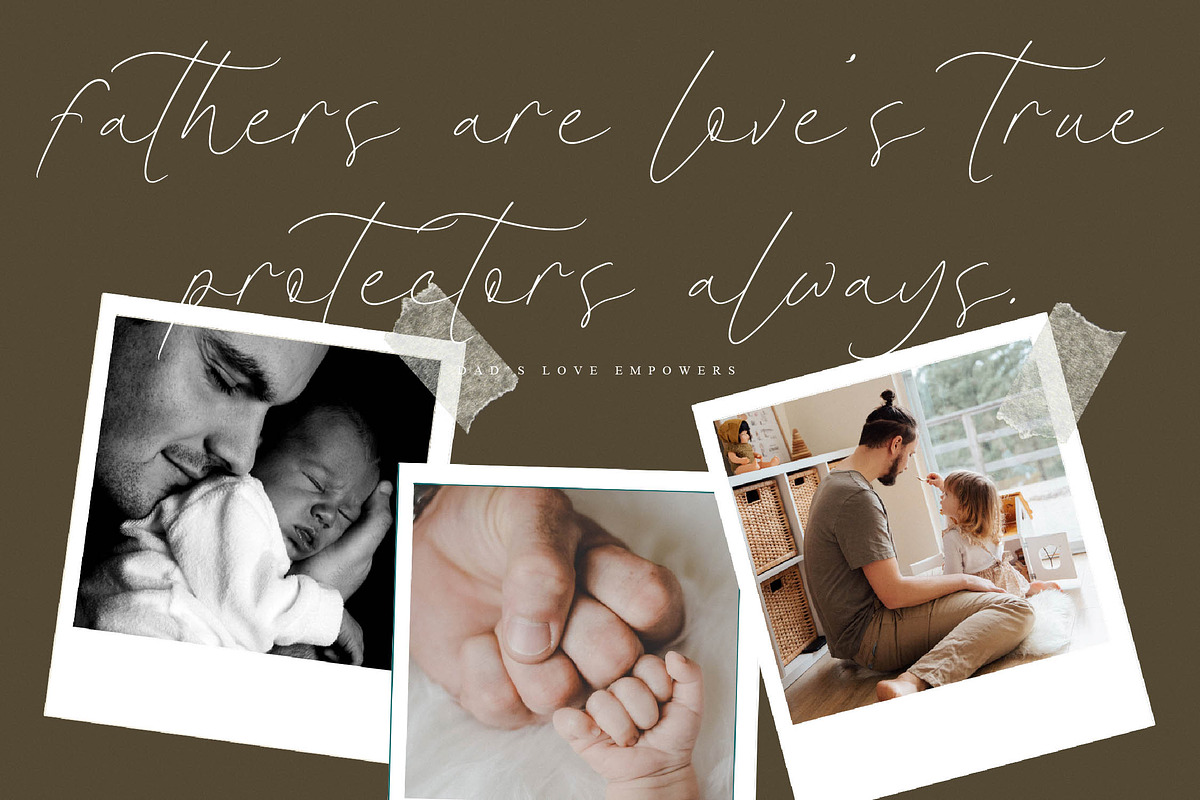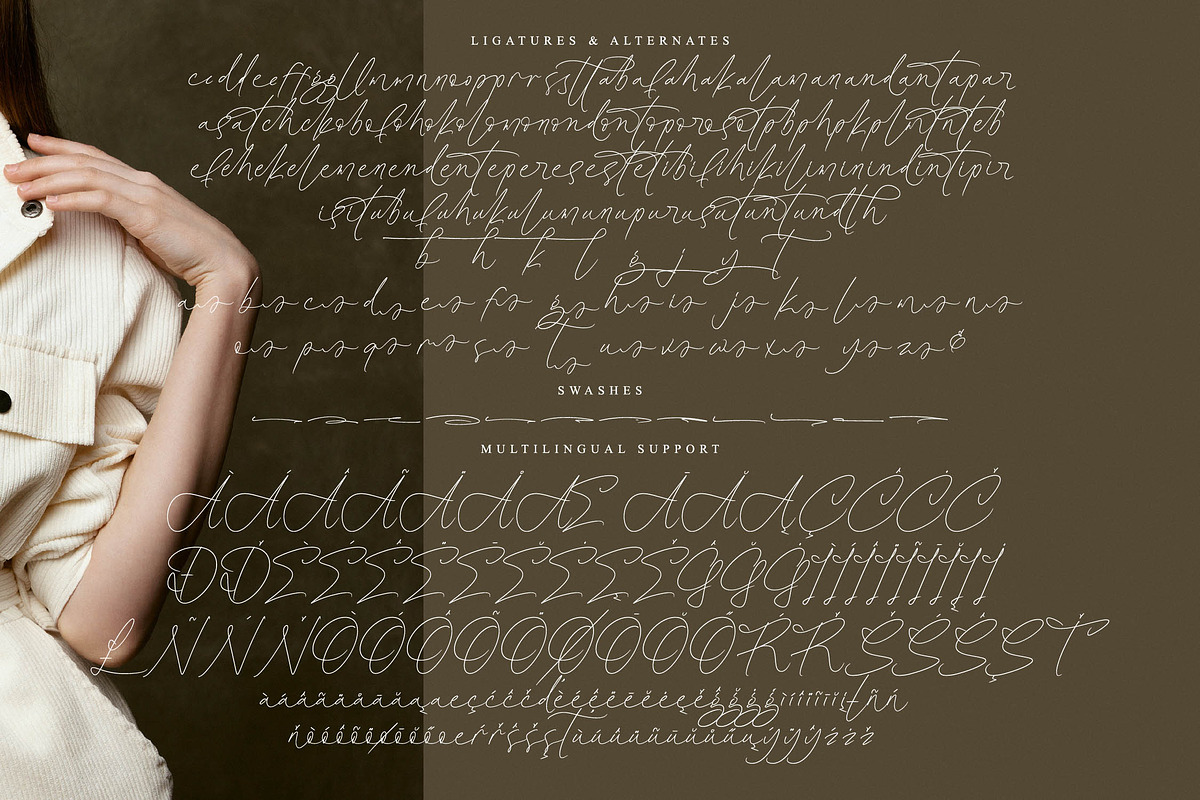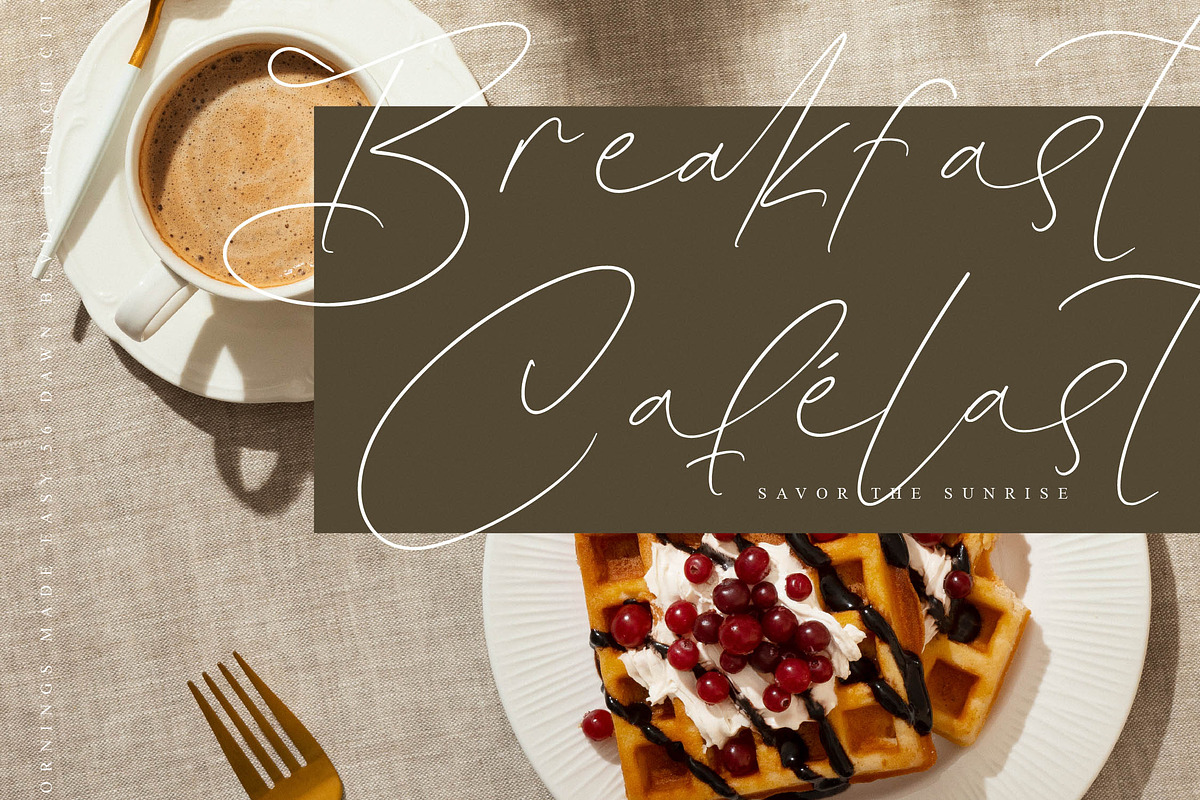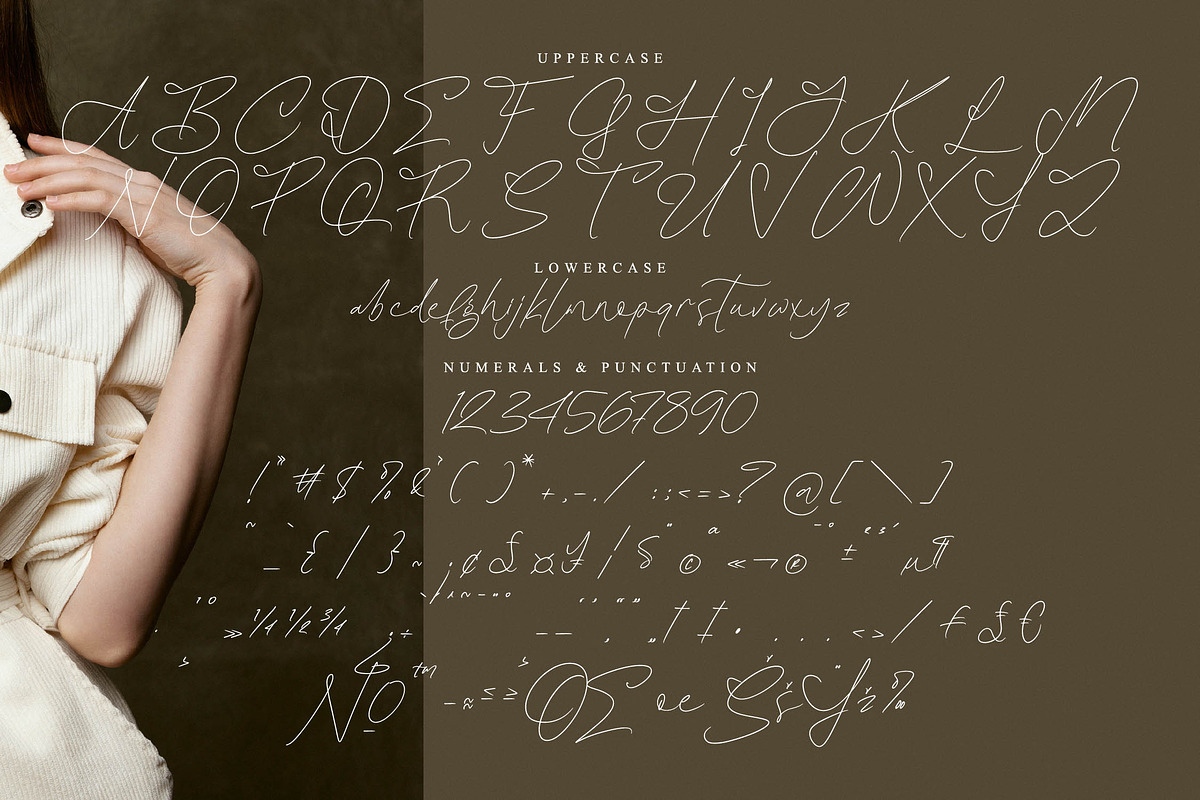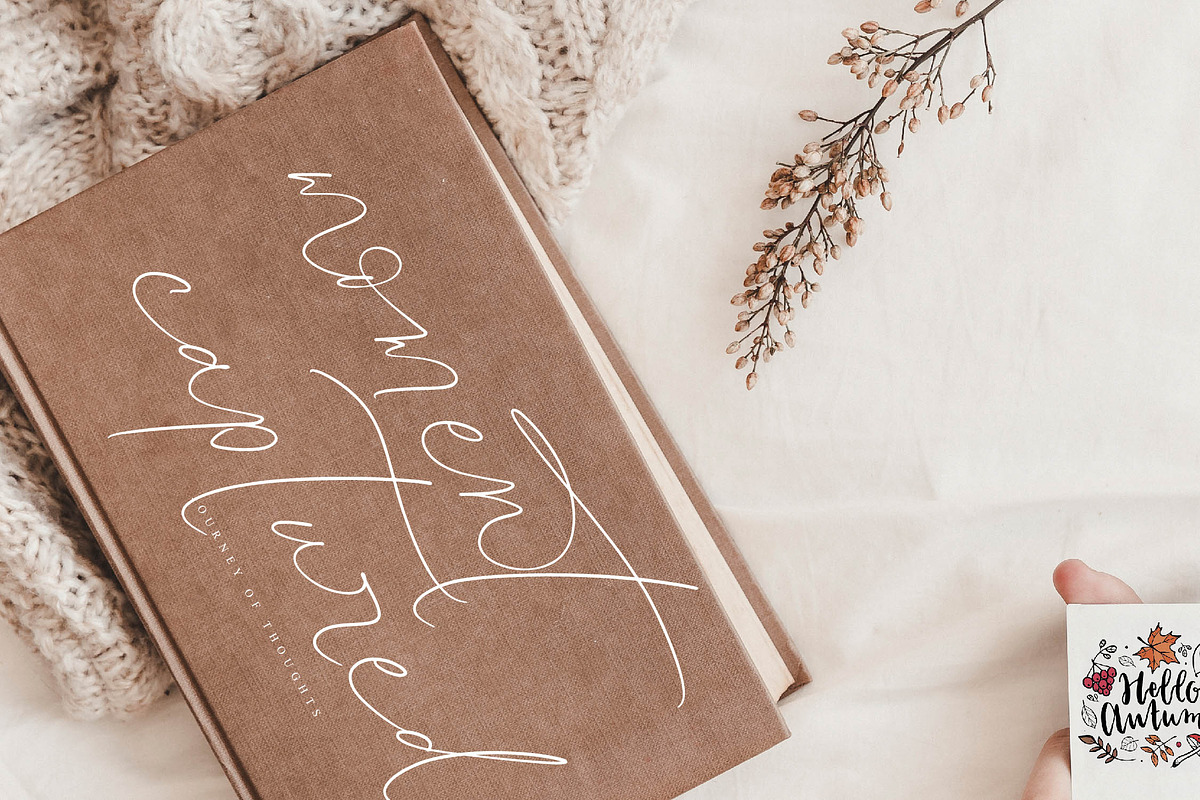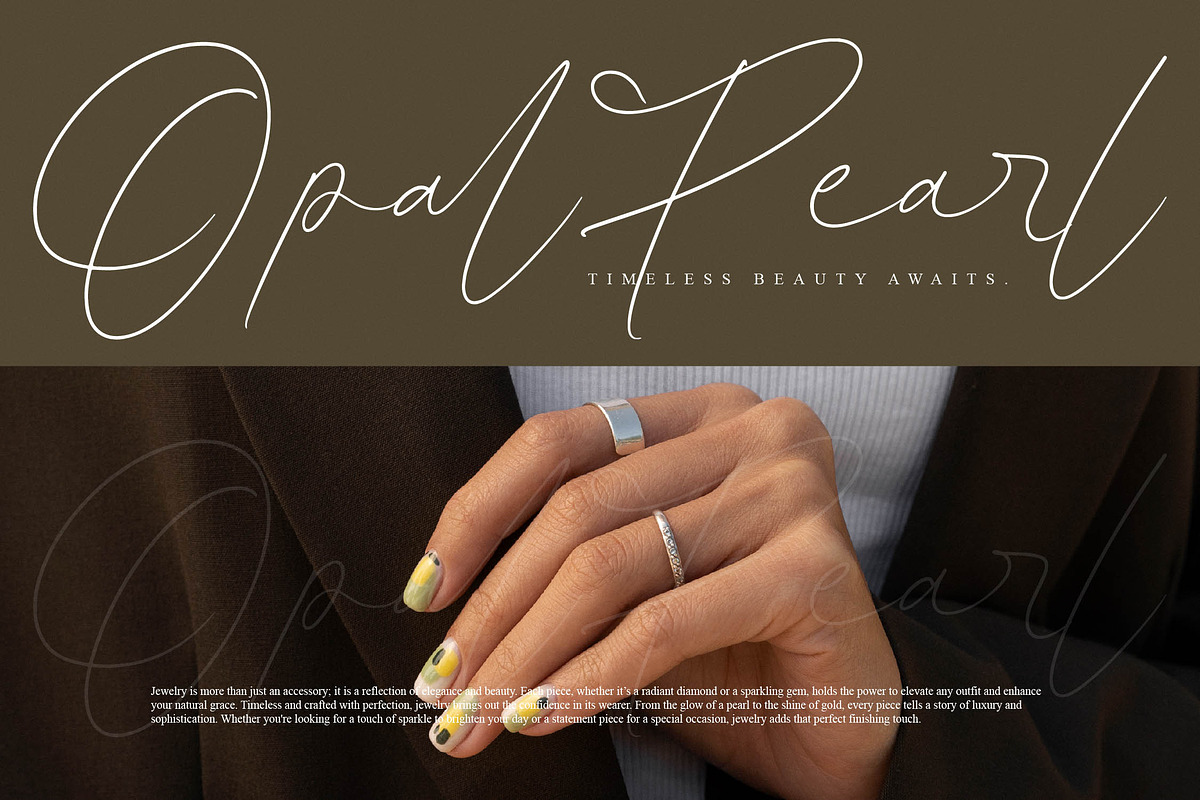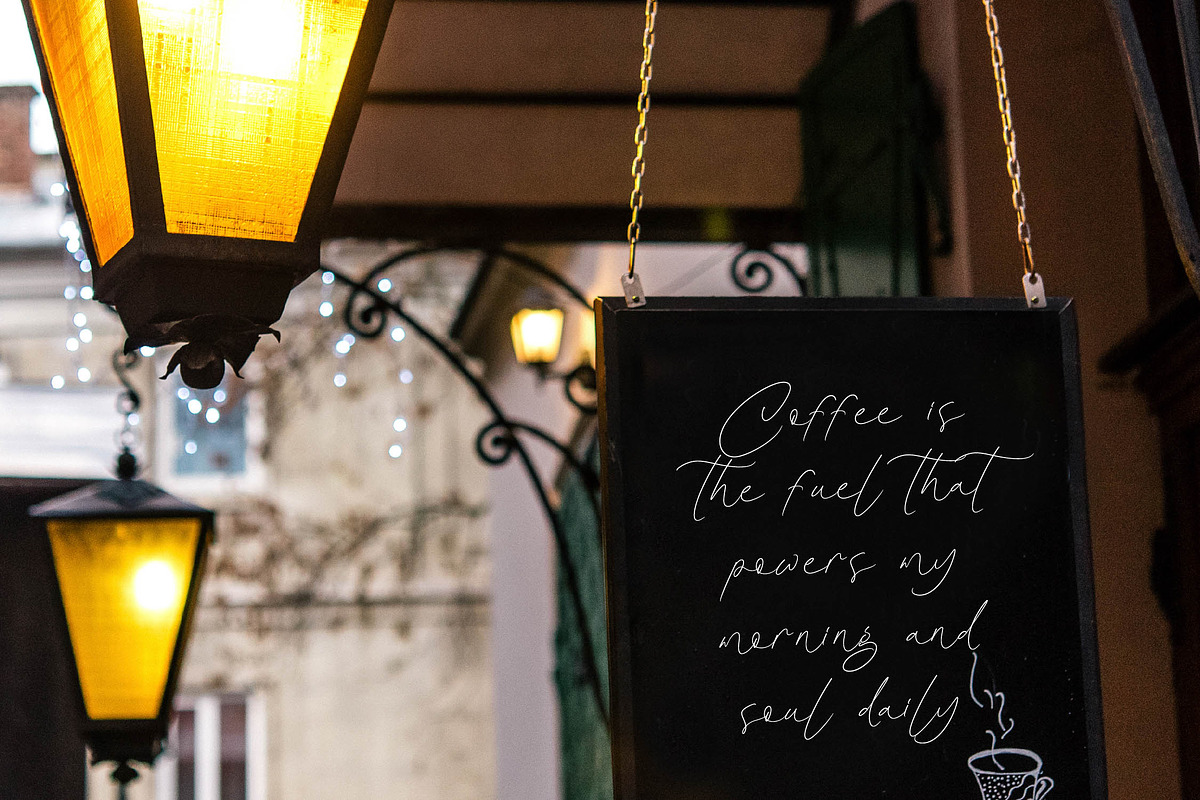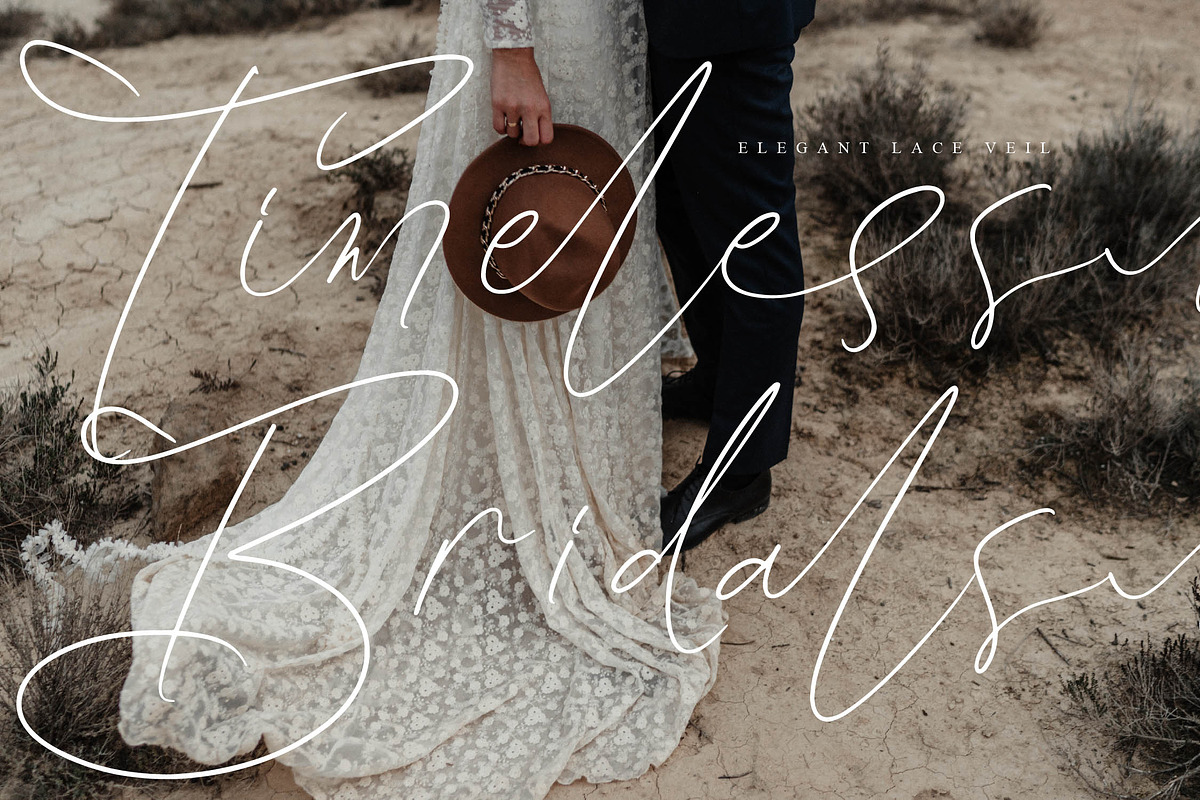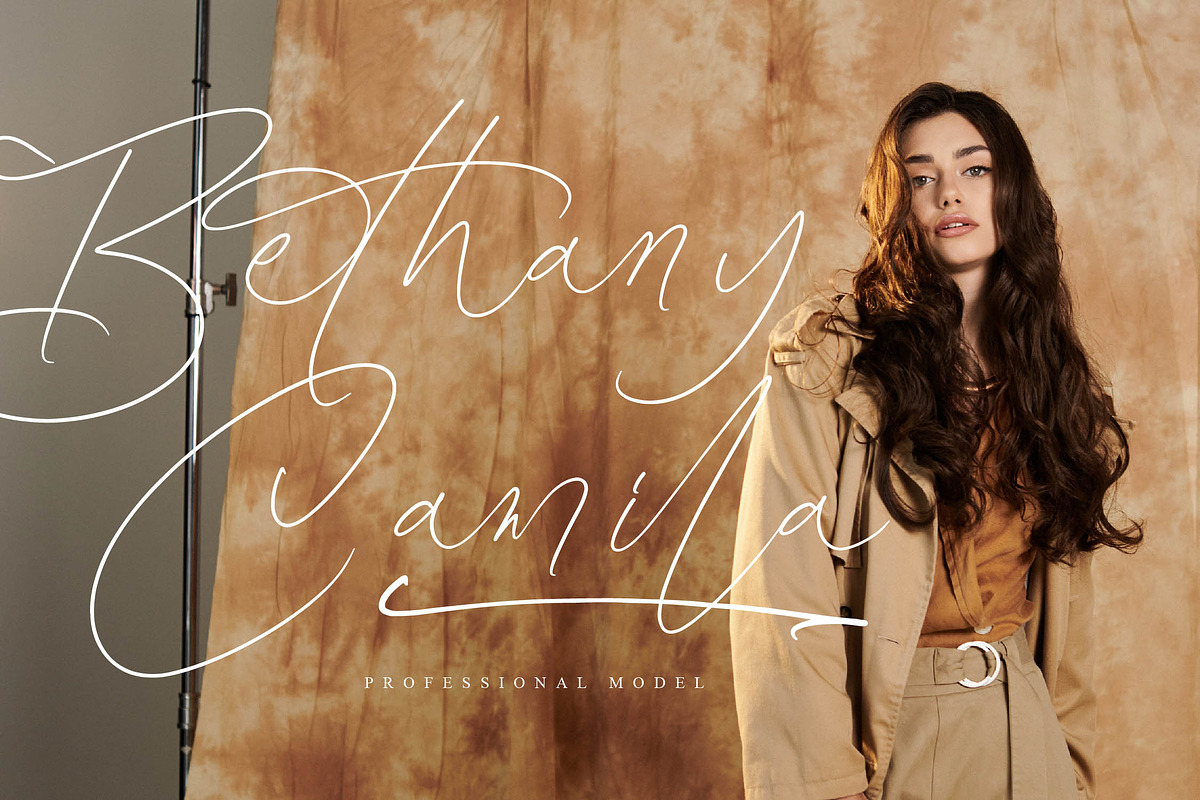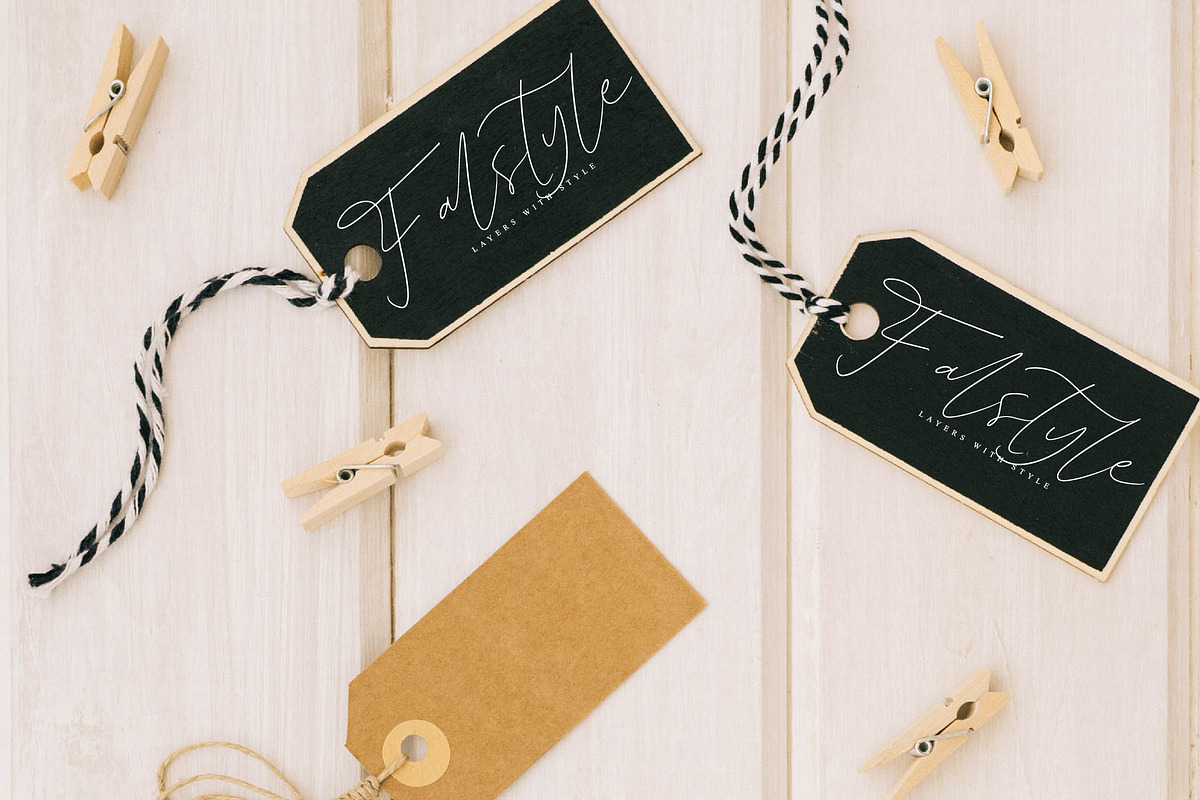
Brookside Pasture
Brookside Pasture - A Beautiful Handwritten, from Operatype.Co, perfect for any project like: logos, branding projects, homewares designs, product packaging, mugs, quotes, posters, shopping bags, t-shirts, covers books, business cards, invitation cards, greeting cards, labels, photography, watermarks, special events and all your other luxury projects that require a premium taste.
Ligatures, Alternate & Swashes